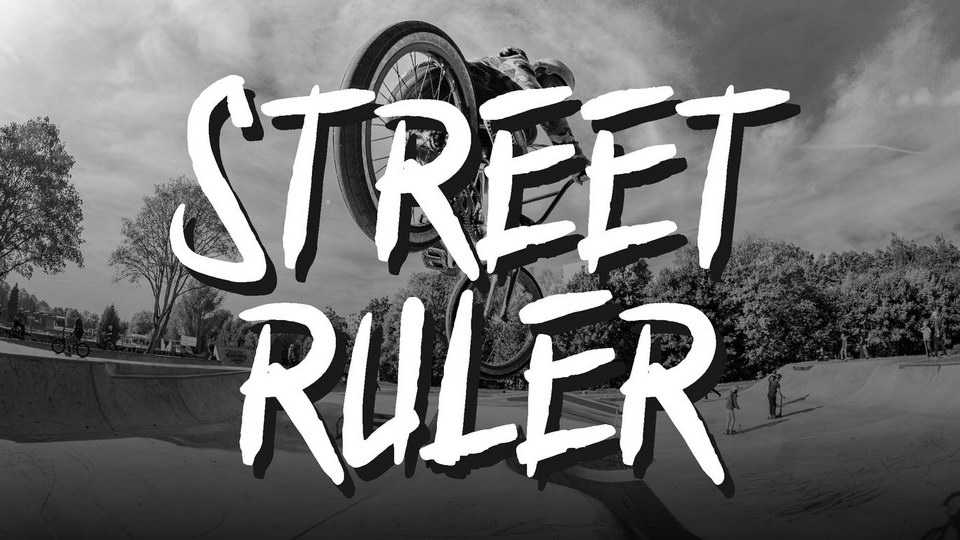
Download Street Ruler font, an urban street style brush font It’s all about aggressiveness, energy, and rebel youth. Street is where it’s all begin. Suit perfectly for Urban clothing brand, skateboard and BMX event and more.